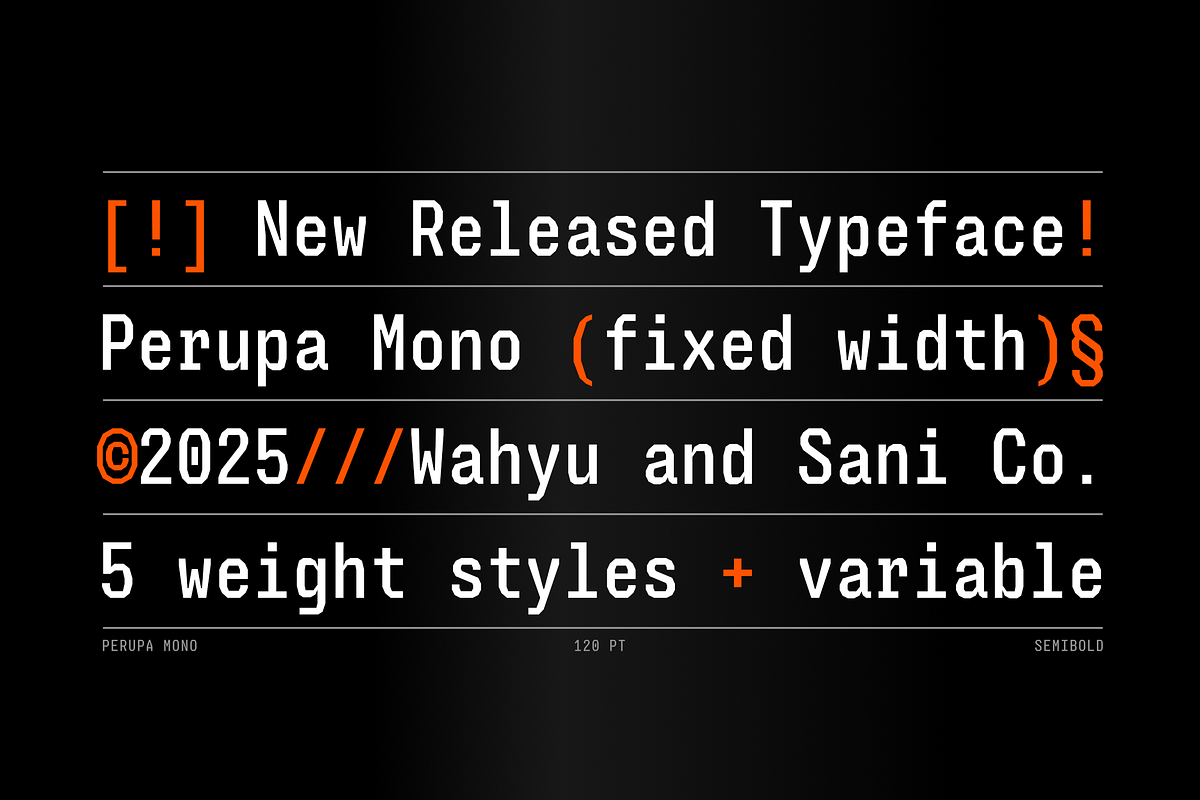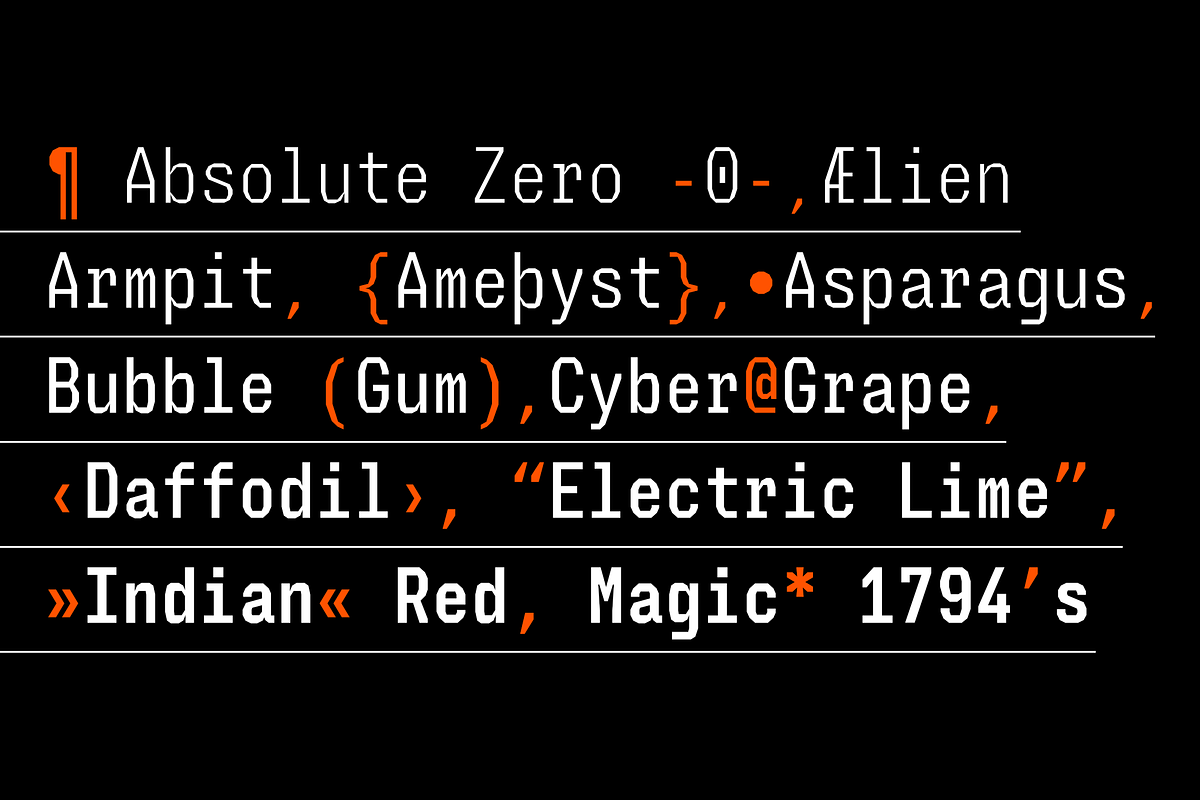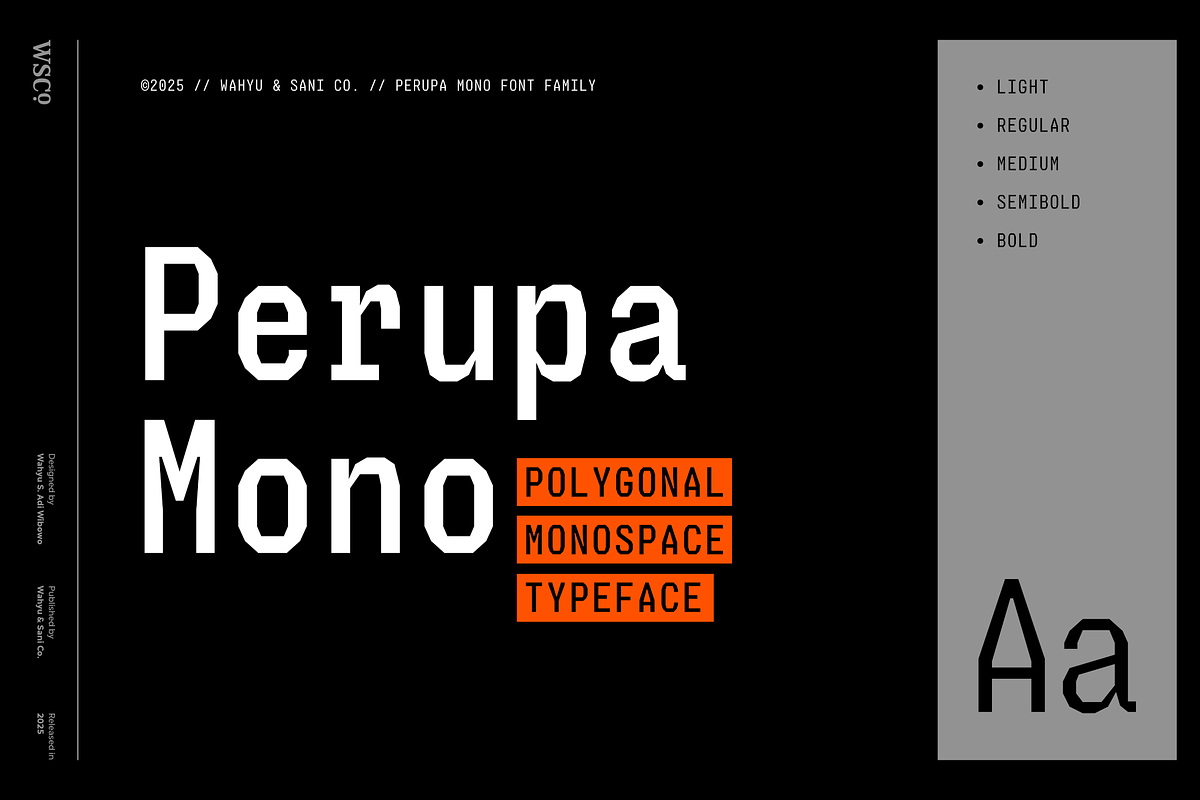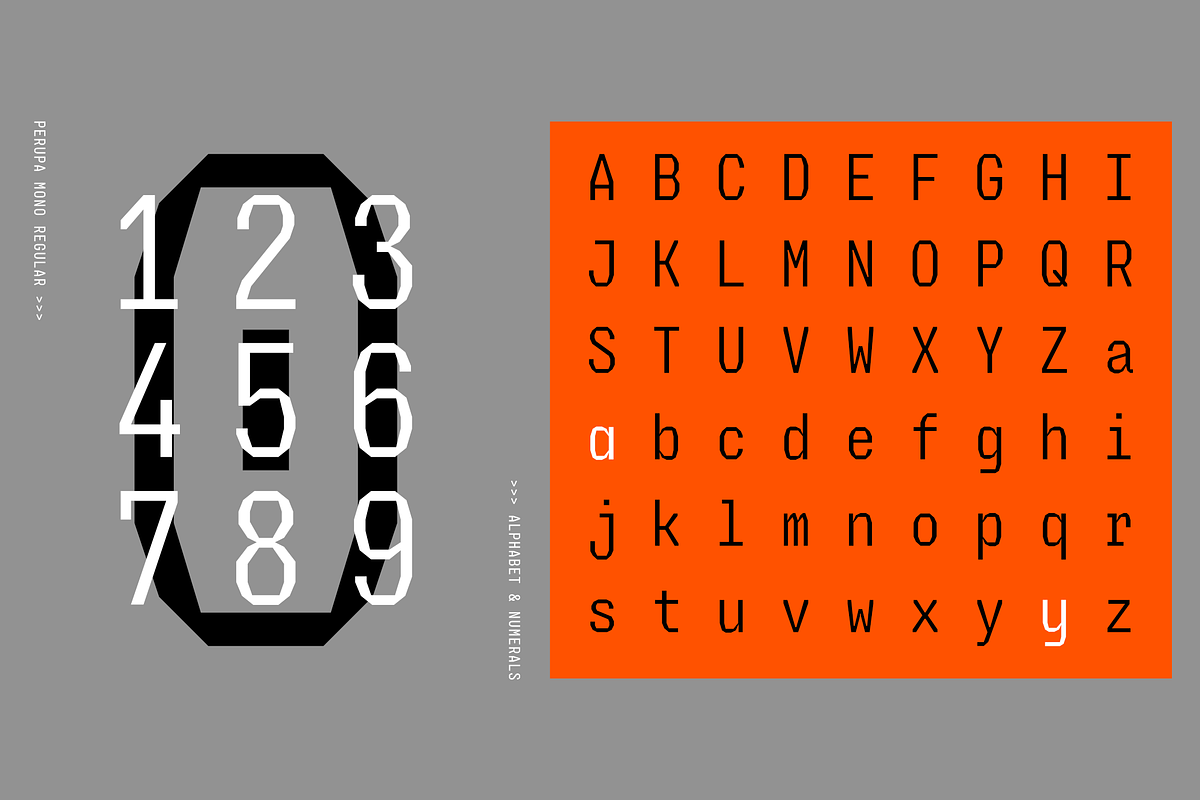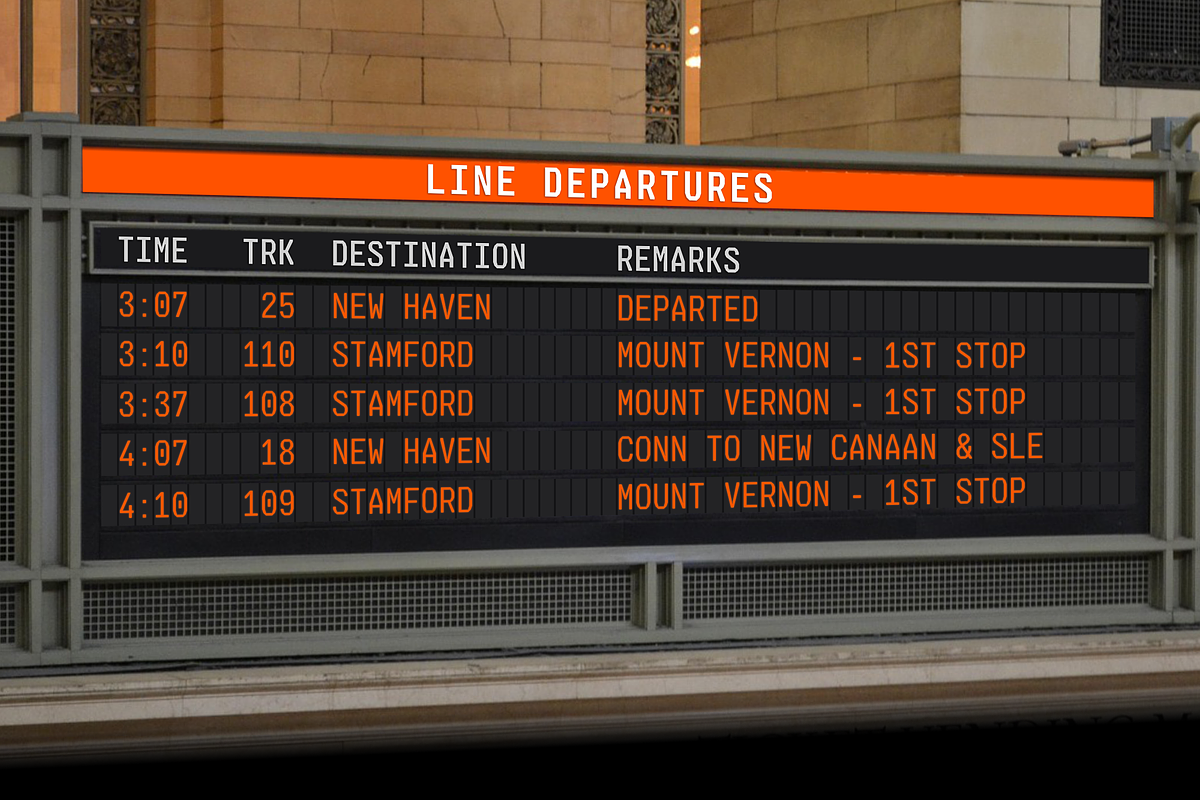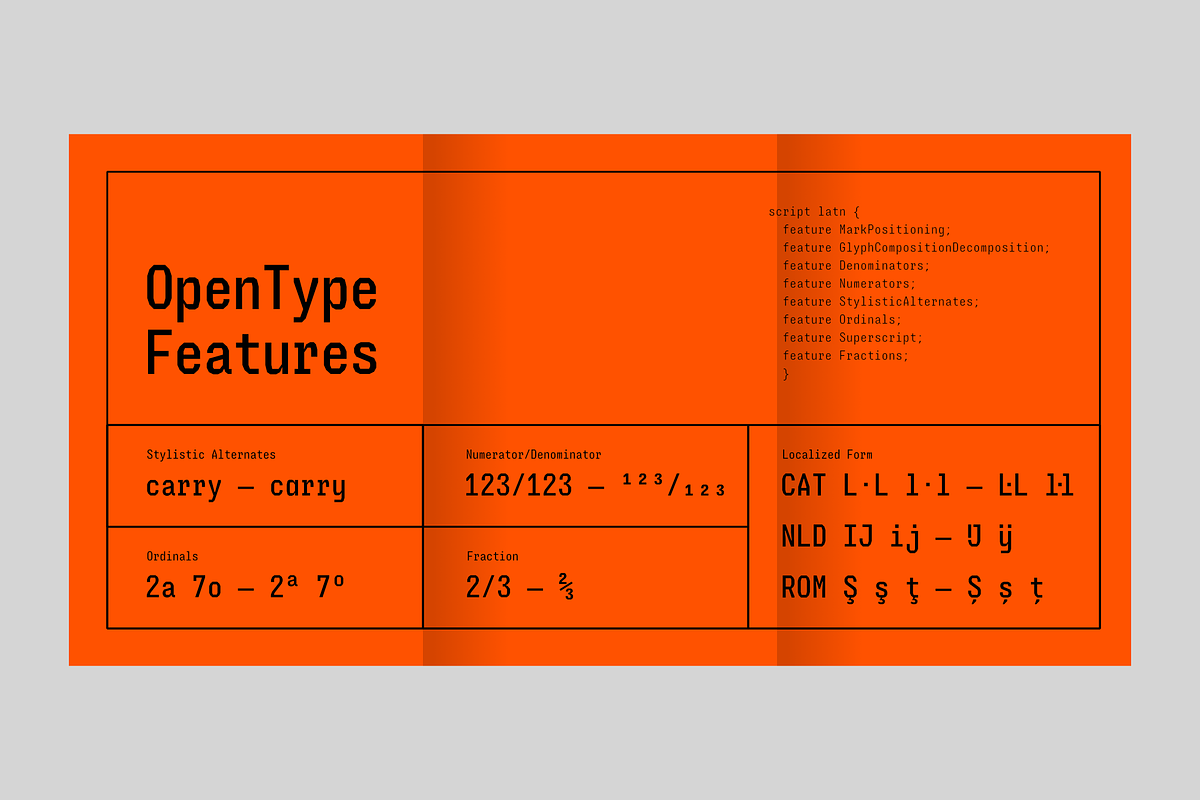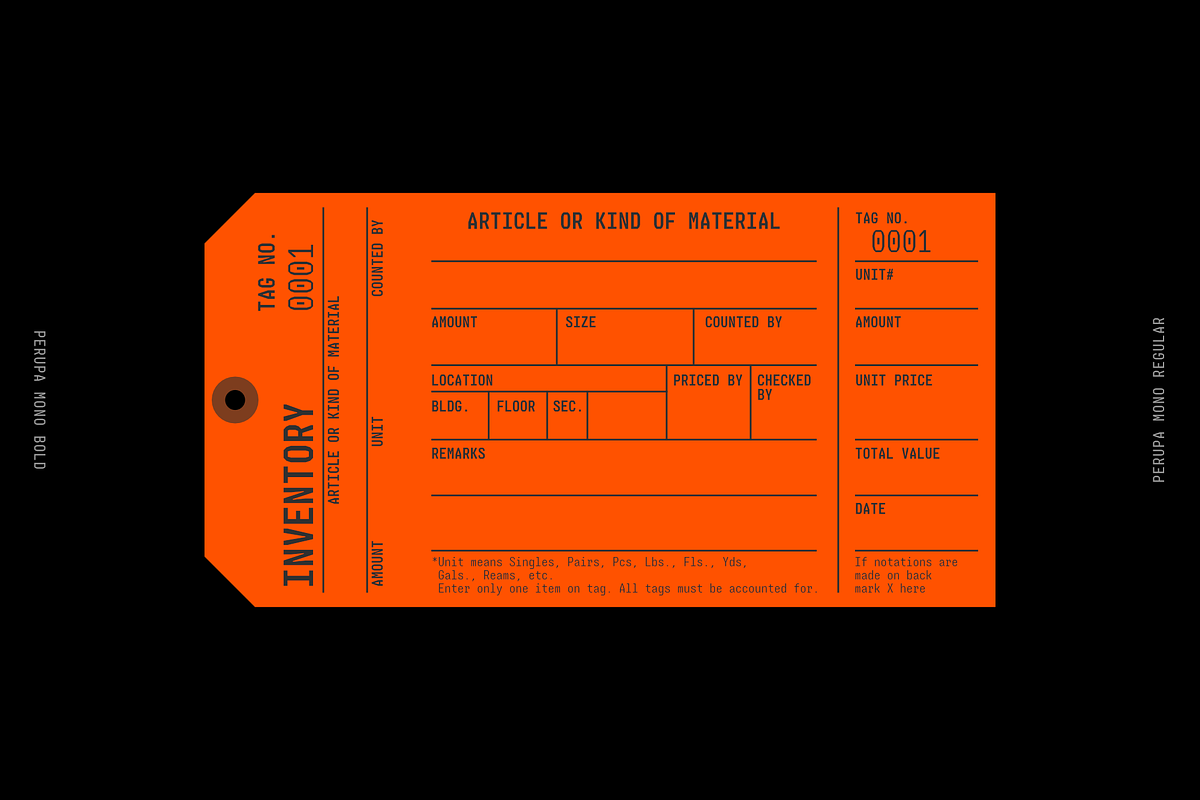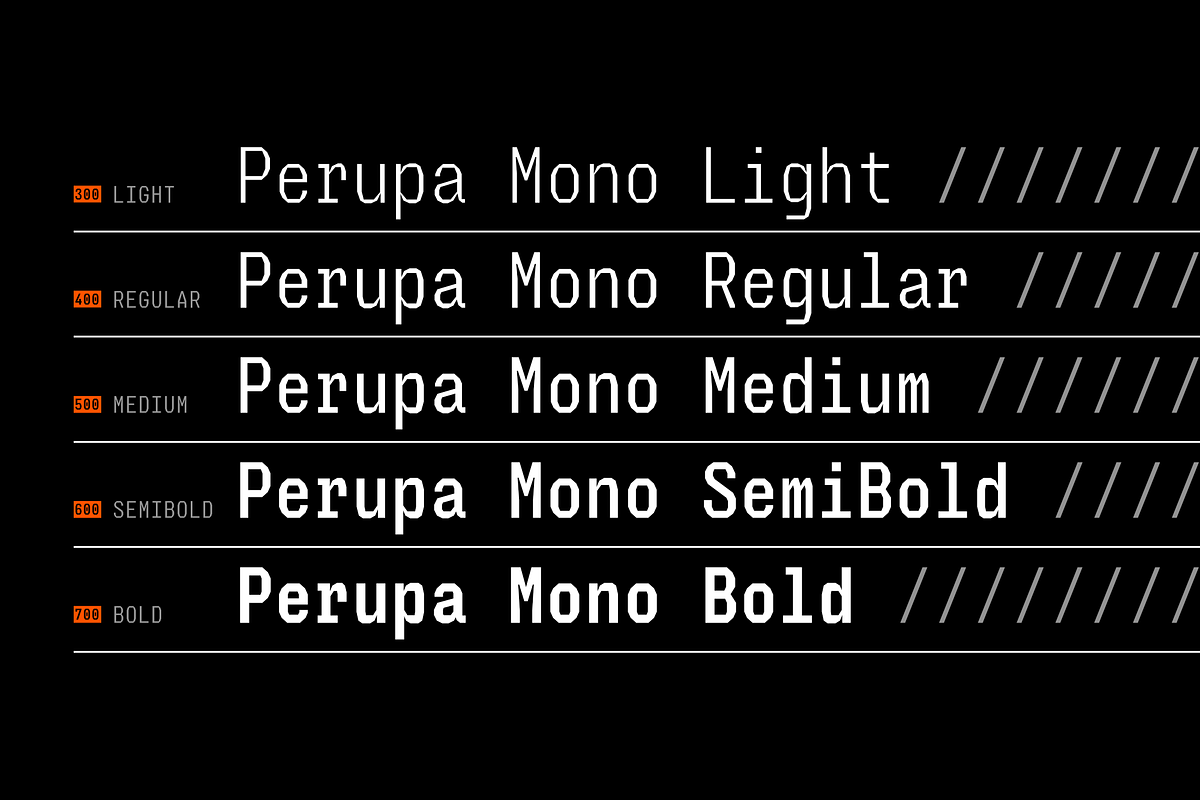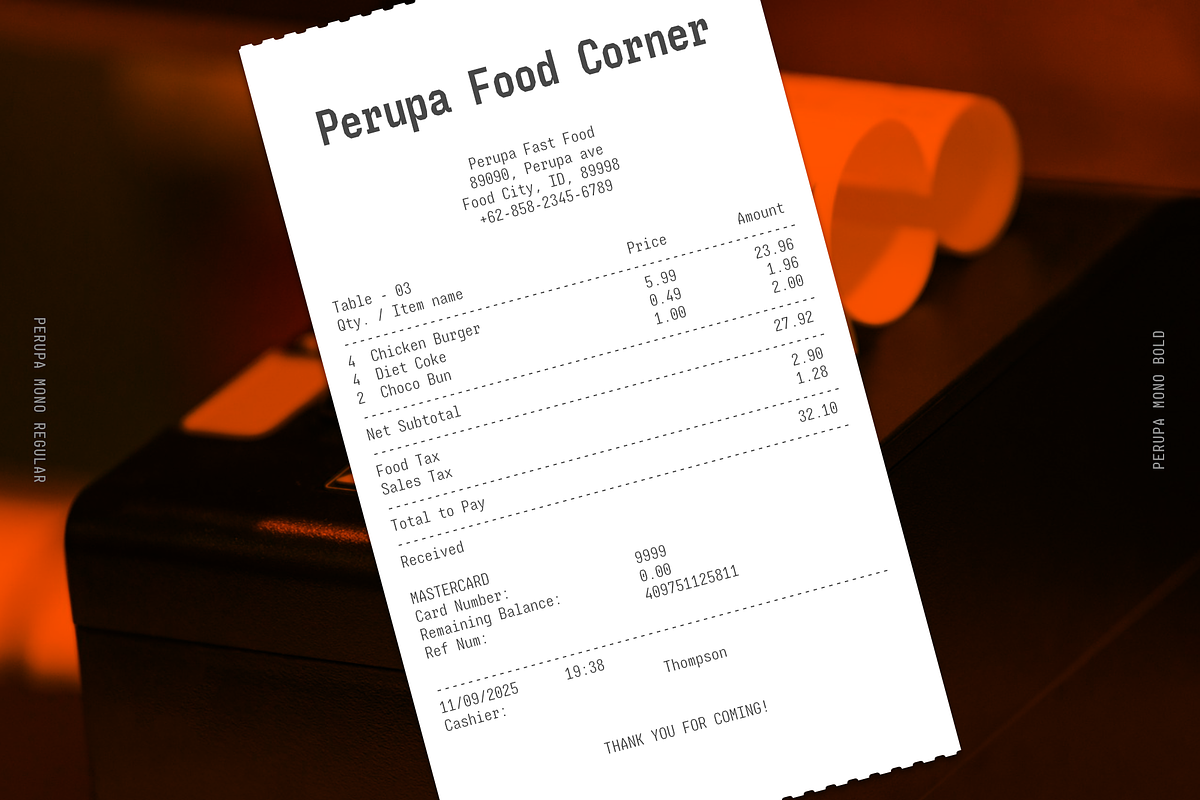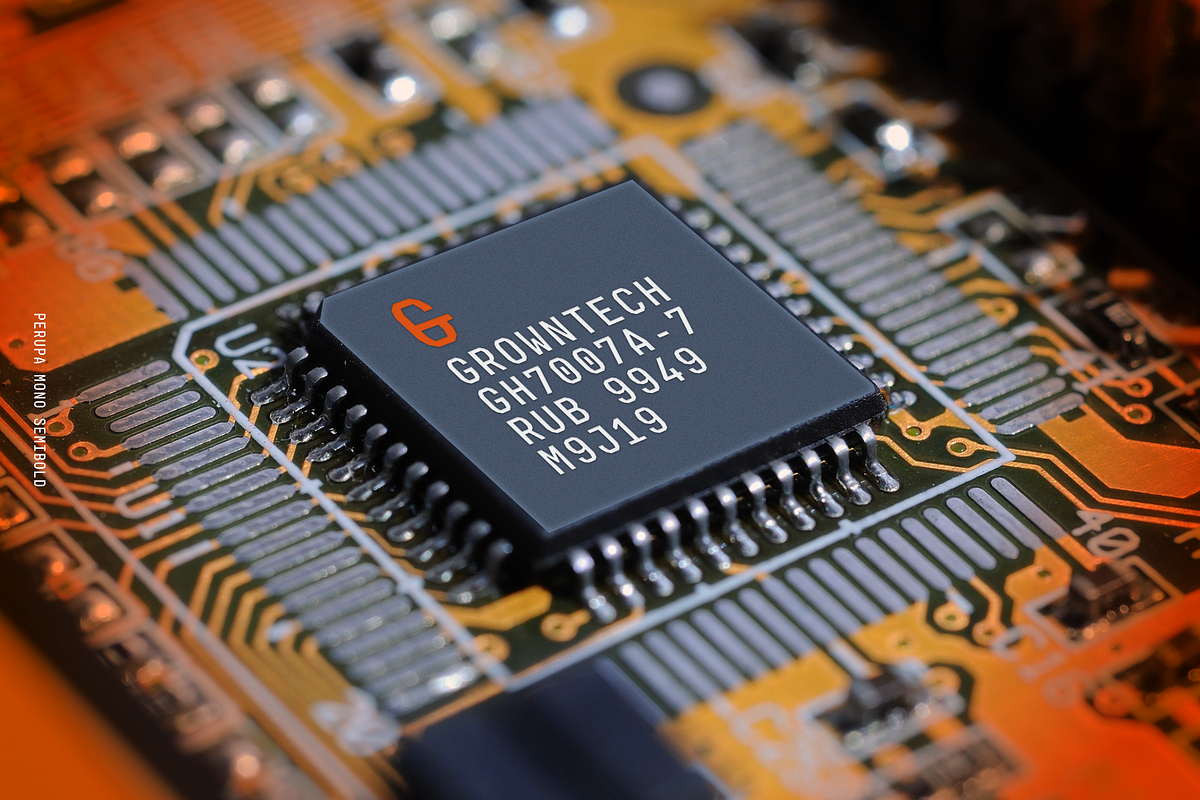
Perupa Mono | Polygonal Monospace
PERUPA MONO
A polygonal monospace font family designed for precision and readability. Each character is carefully crafted to ensure optimum legibility. The sans serif design and fixed width ensure that Perupa Mono is perfect for coding, terminal use, and other applications where clarity is paramount.
KEY FEATURES
- Sans Serif: Clean and minimalist design for optimal readability.
- Fixed Width: Each character has a consistent width, ensuring perfect alignment and readability in code and tabular settings.
- Rigid Modular Shape: Geometric shapes and clean lines create a cohesive and modern aesthetic.
- Narrow Width: Optimized for dense text and coding environments.
- 5 Weight Styles: From Light to Bold, Perupa Mono offers a range of weights to suit various design needs.
WEIGHT STYLES
- Light: Thin and delicate, perfect for UI elements and subtle text.
- Regular: Our standard weight, ideal for body text and coding.
- Medium: A balanced weight, suitable for headings and emphasis.
- SemiBold: Strong and assertive, perfect for titles and highlights.
- Bold: Thick and commanding, ideal for headings and titles that demand attention.
APPLICATIONS
Perupa Mono is perfect for:
- Coding and development.
- Terminal and command line interfaces.
- Data visualization and dashboards.
- UI design and prototyping.
- Dynamic digital signage and running text display.
- Any application where precision, readability, and consistency are crucial.